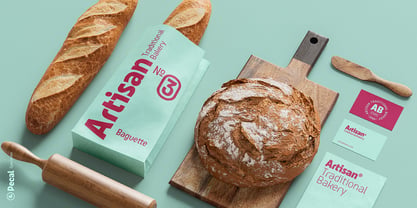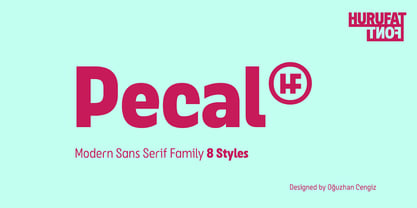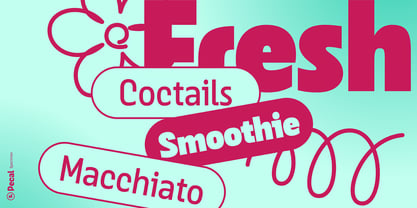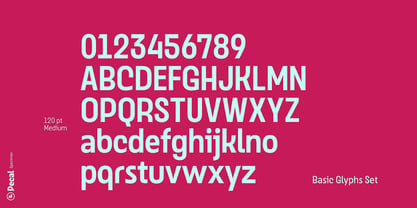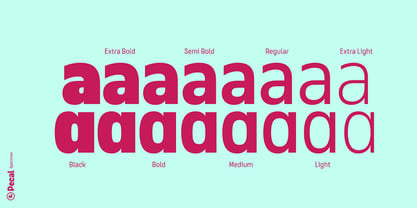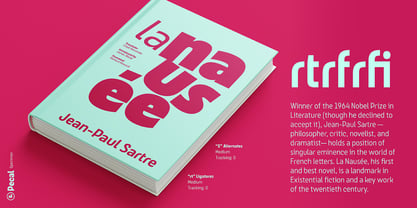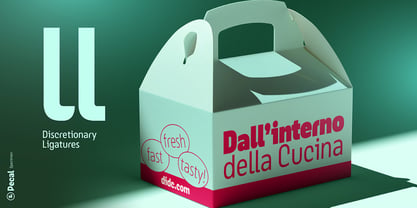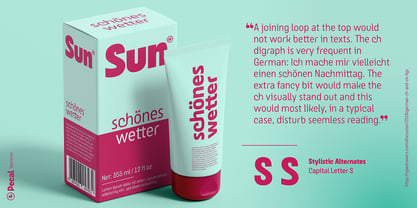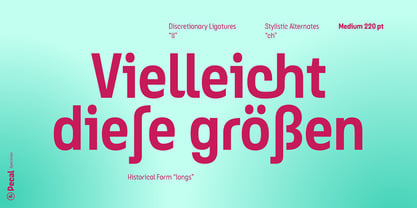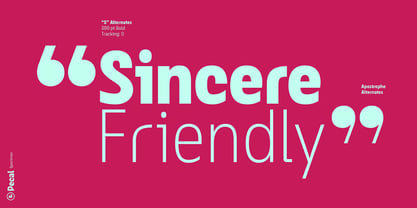
Pecal
by Hurufatfont
The Pecal Font Family was designed by Oğuzhan Cengiz and published by Hurufatfont. Pecal contains 8 styles and family package options.
Pecal takes its name from the Turkish word “paçal,” a term used to describe the blending of different elements into a new and unified whole. This idea forms the foundation of the typeface’s design approach.
Rather than adhering to a single historical or stylistic tradition, Pecal is shaped through the reinterpretation of diverse typographic influences. Drawing inspiration from humanist, geometric, and grotesque sans serif traditions, its letterforms balance industrial precision with subtle organic qualities. This approach brings together multiple design languages within a cohesive system, resulting in a distinctive typographic identity.
Strong verticals, broad shoulders, and compact spacing give Pecal a commanding presence and high visual impact. The family reveals its character most clearly at larger sizes, where its bold forms reflect the energy and dynamism of contemporary visual culture.
Pecal is designed for today's creative landscape, making it particularly well suited for cultural events, festivals, innovative packaging, posters, apparel graphics, and food branding. Its dynamic structure performs equally well in attention-grabbing headlines and expressive brand identities.
As its name suggests, Pecal is a contemporary character born from the convergence of different typographic ideas. It draws from familiar forms yet offers something beyond their sum, creating a visual language of its own. By bringing diverse influences together within a unified system, Pecal reflects the pluralistic and expressive spirit of contemporary design.
Designers: Oğuzhan Cengiz
Foundry: Hurufatfont